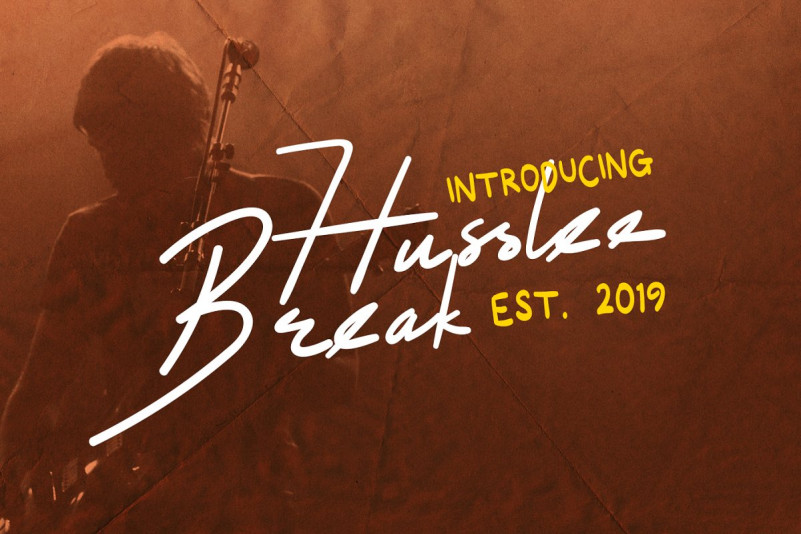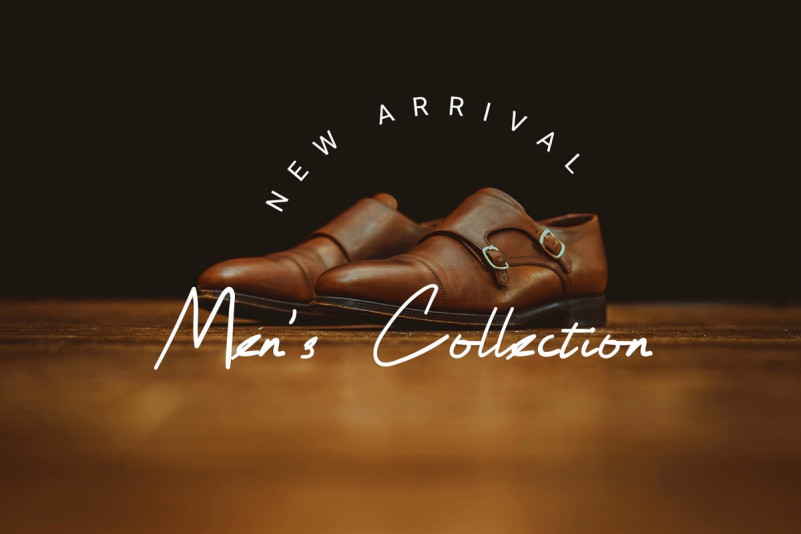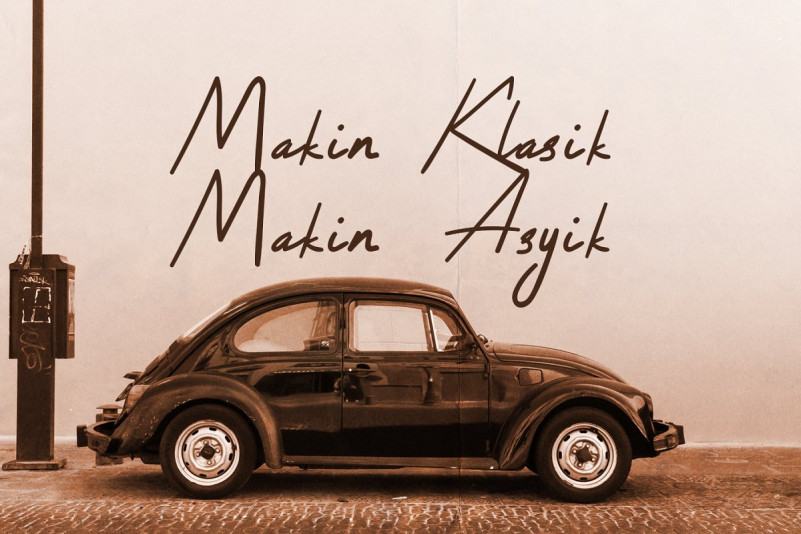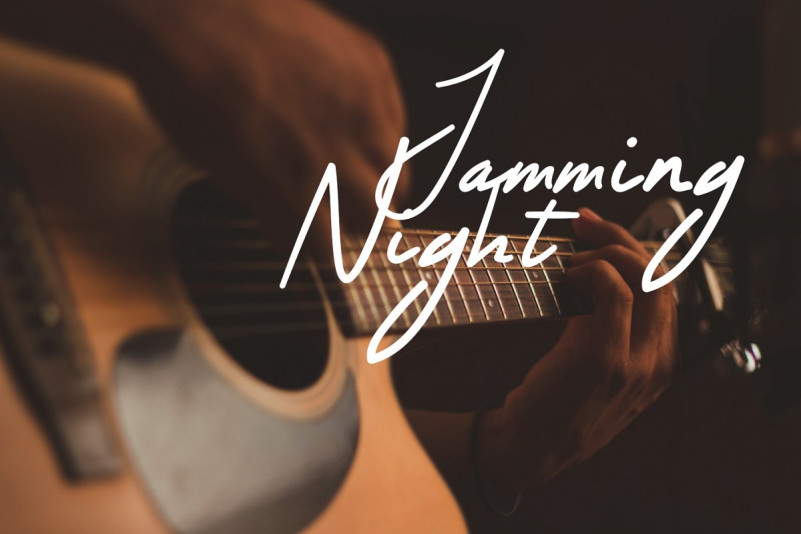
Husslee Break Script Font
Say Hello Guy’s. Thank you for looking Husslee Break Font. This is a cool and clean handwritten font featuring alternates, a work that is purely a result of handwriting, has a natural characteristic. A Script handwritten font. This font is suitable to use for fashion, classic style. You can use it for various projects such as branding design, blog headers, signatures, quotes, fashion apparel, business card, stationery and more…